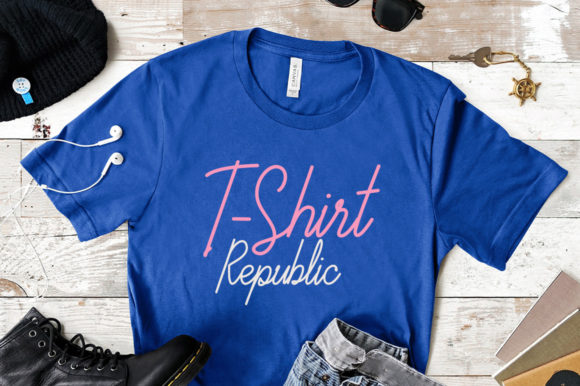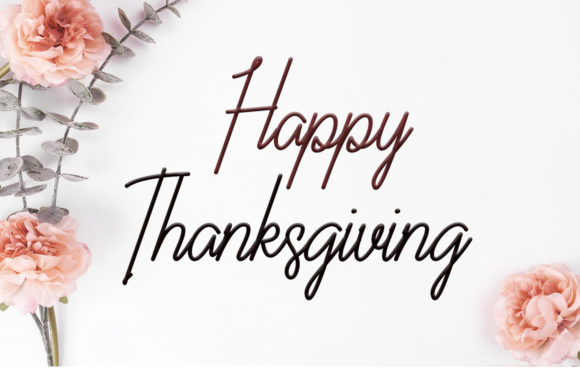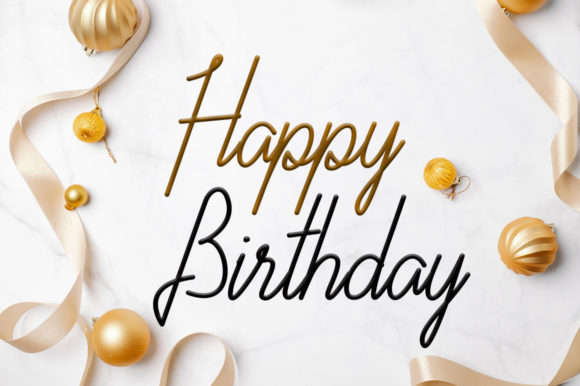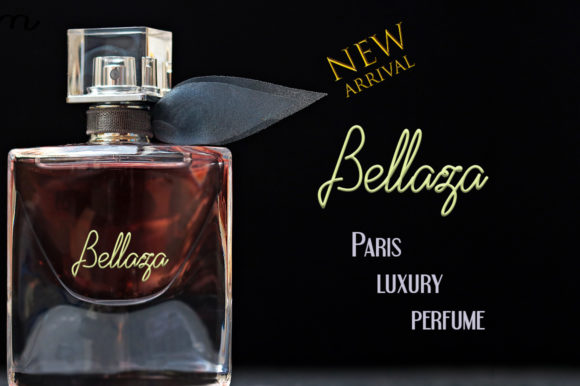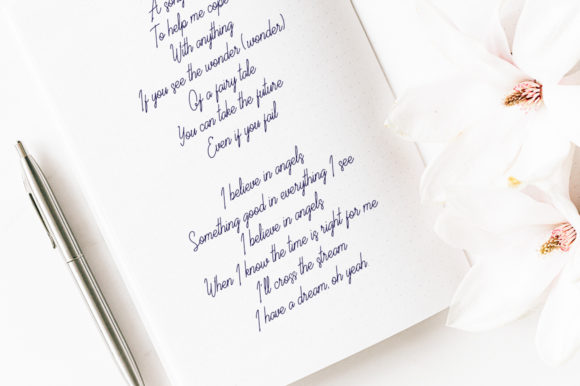
Have you ever stared at a blank page, waiting for the perfect words to flow? The struggle is real, but with the right tools, your creative vision can come to life. For designers, finding the perfect font can be the game-changer that elevates a project from good to great. That’s where the Dheynamist Font comes in – a simple yet elegant monoline script font designed to make a statement.
Whether you’re creating product packaging, invitation cards, or album galleries, the Dheynamist Font is the perfect companion for your next design project. Its versatility, combined with its high-quality typography, makes it a valuable asset for any designer. With PUA encoding, accessing all the glyphs and swashes is a breeze, giving you the freedom to unleash your creativity.
Dheynamist Font Key Features
- Font Size: Supports font sizes ranging from 8pt to 72pt
- Resolution: Optimized for 72 dpi and 96 dpi resolutions
- Unique Characteristics: Geometric shapes and dynamic letterforms create a unique visual identity
- Language Support: Supports over 200 languages, including Latin, Cyrillic, and Greek scripts
- Font Style: Available in Regular, Italic, Bold, and Bold Italic styles
Dheynamist Font Review
First off, I’d say the Dheynamist font has some great qualities that make it a solid choice for certain projects ✨. The unique, futuristic vibe it brings to the table is quite eye-catching and modern. The font’s bold and dynamic feel makes it perfect for titles, headings, and other prominent text elements.
The Dheynamist font also features a wide range of weights, from light to bold, which provides flexibility when working with different text sizes and styles ✨. Additionally, the font’s OpenType features allow for more nuanced control over the design, such as ligatures and swashes, which can add a touch of sophistication to your work.
However, I do have some reservations about the font’s limitations ⚠️. For one, the font can be quite difficult to read at smaller text sizes, which may not be ideal for body text or other smaller-scale applications. Additionally, the font’s futuristic feel may not be to everyone’s taste, and some users may find it too bold or overwhelming.
Pros and Cons:
- ✨ Unique, futuristic vibe that’s perfect for modern projects
- ✨ Wide range of weights for flexibility with different text sizes and styles
- ✨ OpenType features for nuanced control over design
- ⚠️ Can be difficult to read at smaller text sizes
- ⚠️ May not be to everyone’s taste due to its bold, futuristic feel
Overall, I’d say the Dheynamist font is a solid choice for projects that require a bold, modern feel. While it may not be suitable for all applications, it’s definitely worth considering for titles, headings, and other prominent text elements.
Getting the Most Out of Dheynamist Font
Use Dheynamist Font to add a touch of elegance and sophistication to your designs. Pair it with bold fonts for a striking contrast, or use it in combination with other elegant fonts for a cohesive look.
Common use cases for Dheynamist Font include:
2. Luxury branding and packaging.
3. High-end marketing materials and brochures.
Alternatives to Dheynamist Font
Open Sans is a clean and modern sans-serif font designed for digital media. It is highly legible and versatile, making it suitable for body text, headings, and titles. Open Sans is a great choice for designers who want a neutral, yet elegant font that works well across various devices and screen sizes. Compared to Dheynamist Font, Open Sans is more legible and has a more neutral tone, making it a better choice for general use.
Montserrat is a geometric sans-serif font inspired by the urban environment of Buenos Aires. It has a strong, modern feel and is highly legible, making it suitable for body text and headings. Montserrat is a great choice for designers who want a font that conveys a sense of urbanity and sophistication. Compared to Dheynamist Font, Montserrat has a more geometric feel and is more suitable for modern, urban designs.
Lato is a modern sans-serif font with a friendly and approachable feel. It has a high x-height and open forms, making it highly legible and suitable for body text and headings. Lato is a great choice for designers who want a font that is both modern and approachable. Compared to Dheynamist Font, Lato has a more friendly tone and is more suitable for designs that require a human touch.